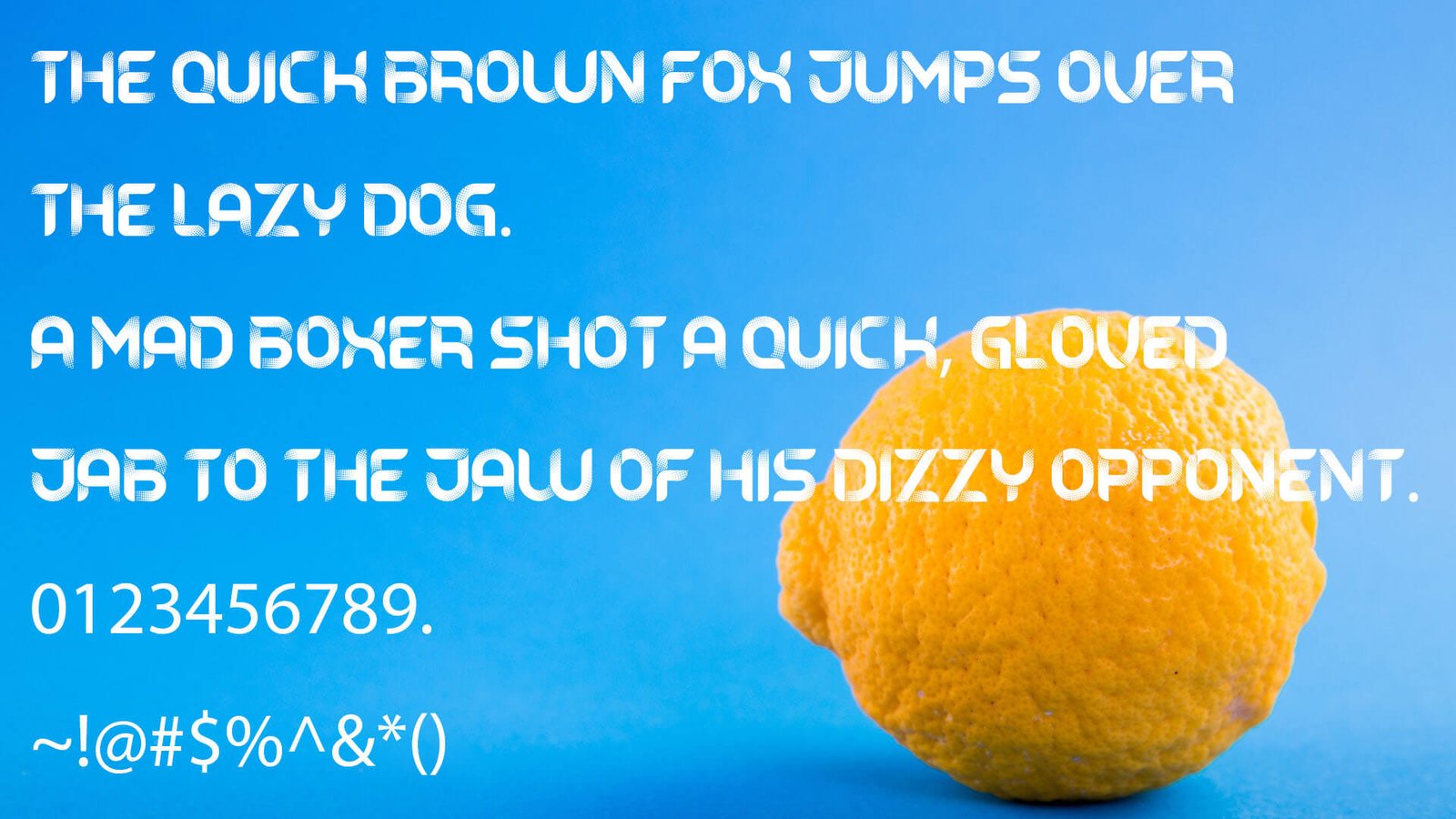
This Font belongs to the display typeface and it is Designed by Serkan. The bamboo font contains more impact in the graphic designing project his professional workout and layout character more stylish and more memorable experience to working on this font.
| Name | Bamboo Font |
| Designer | Serkan |